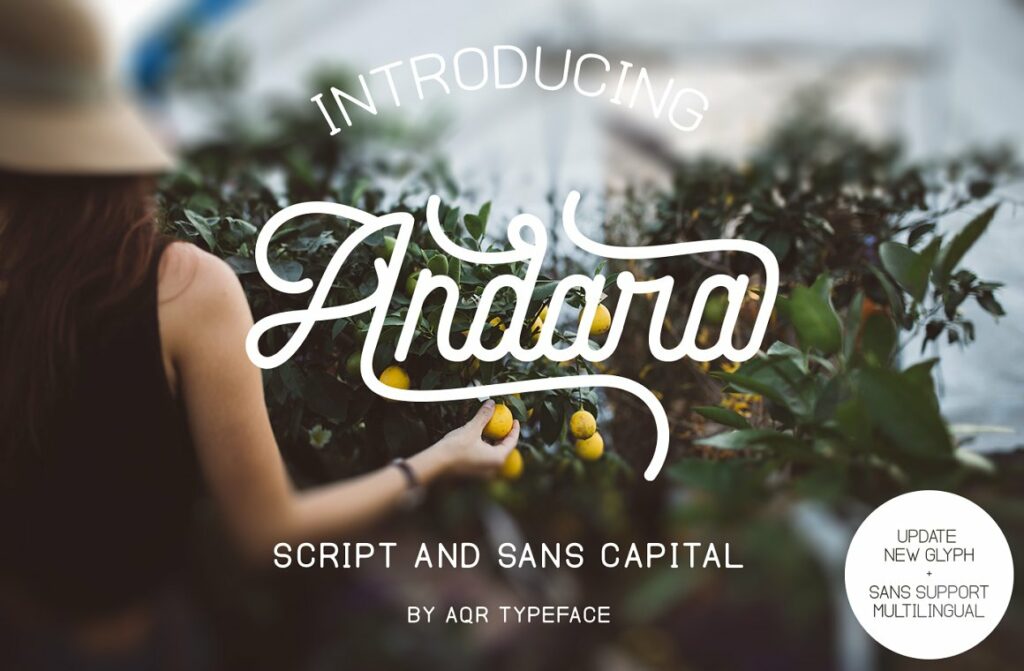
Andara Script Font
Andara is a manual lettering with type soft and sans, These two font script and sans is a great combination for any product and bussines. Andara comfortable for vintage design, classic design, photography, branding design and many more.